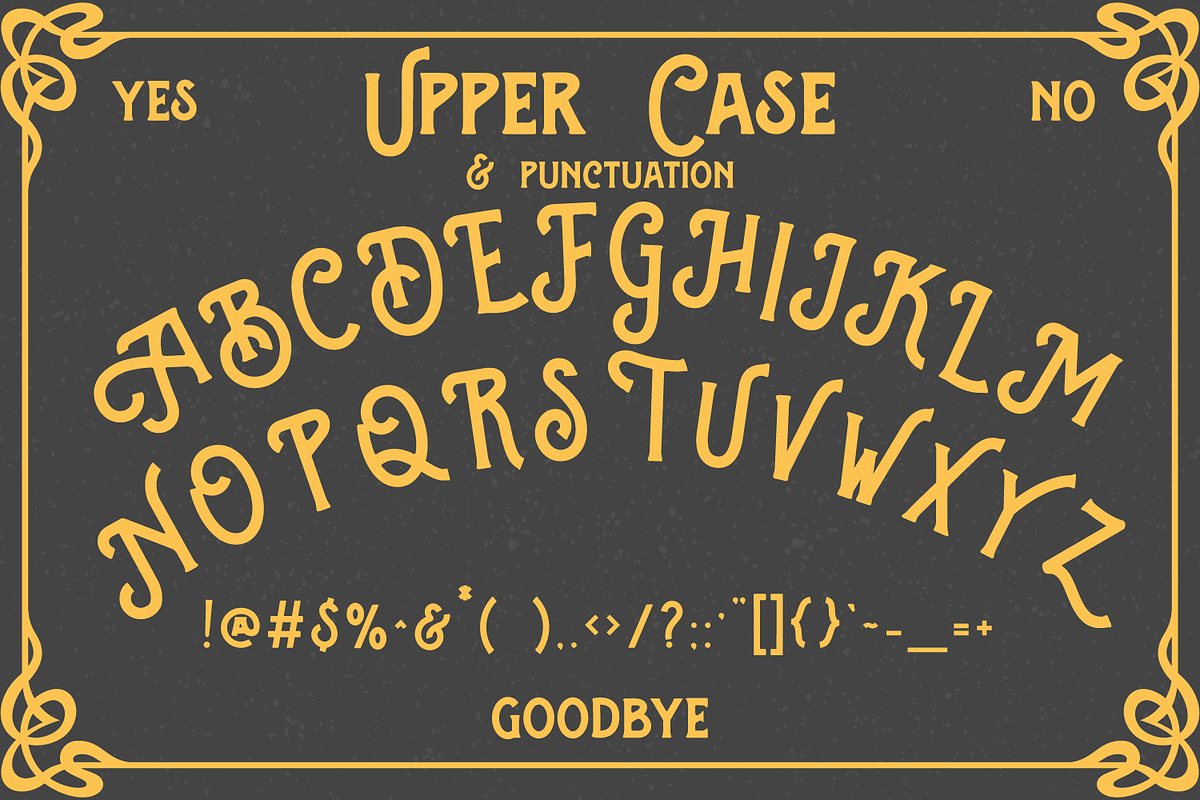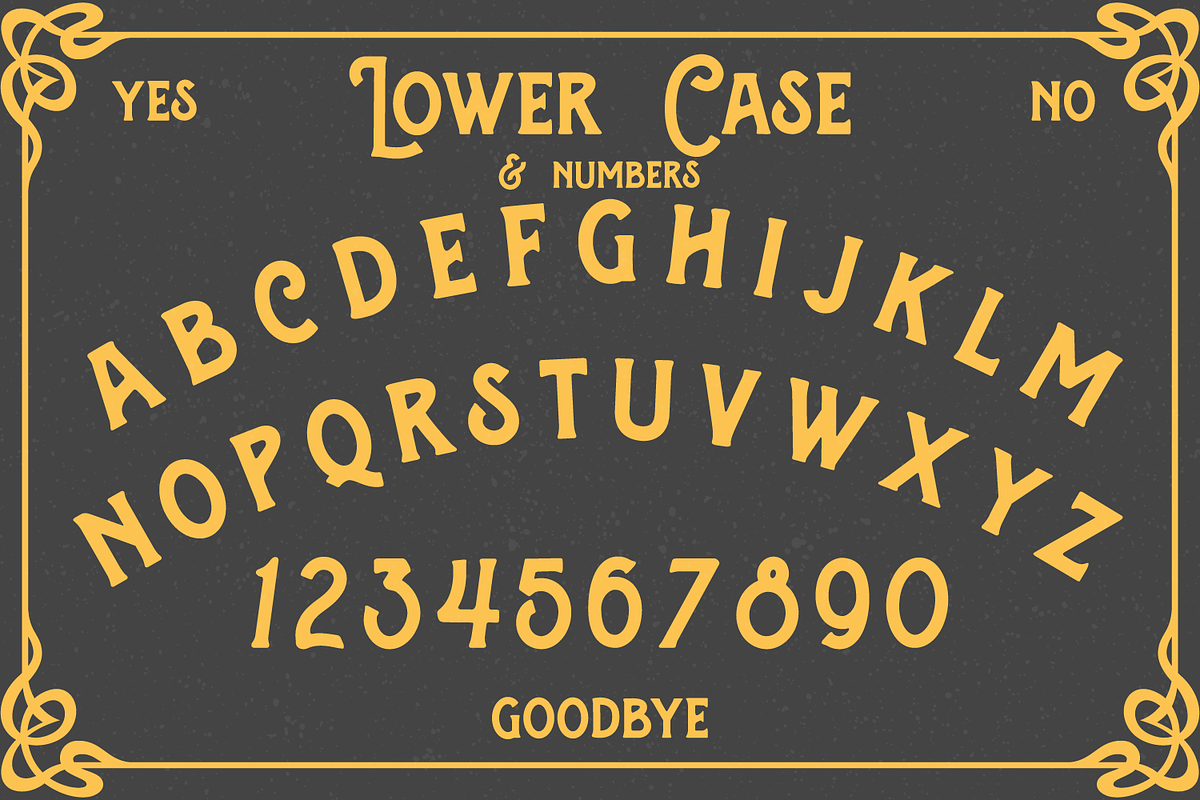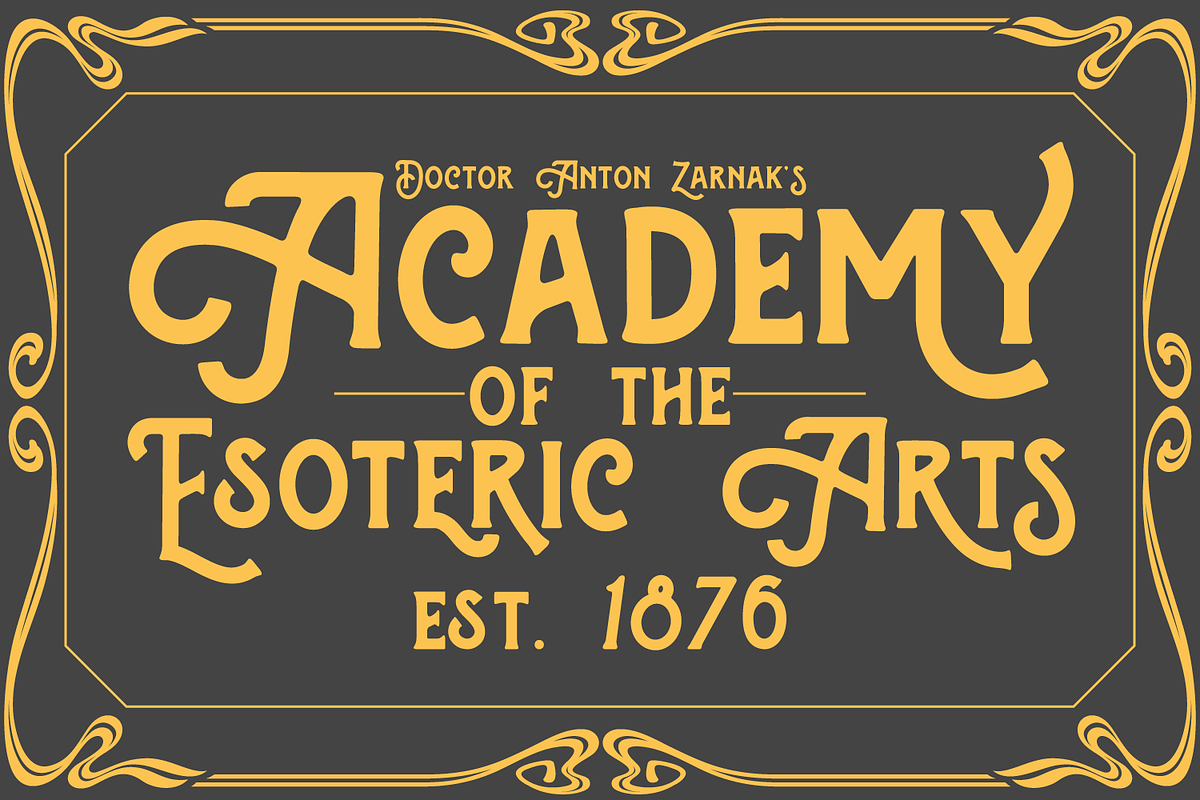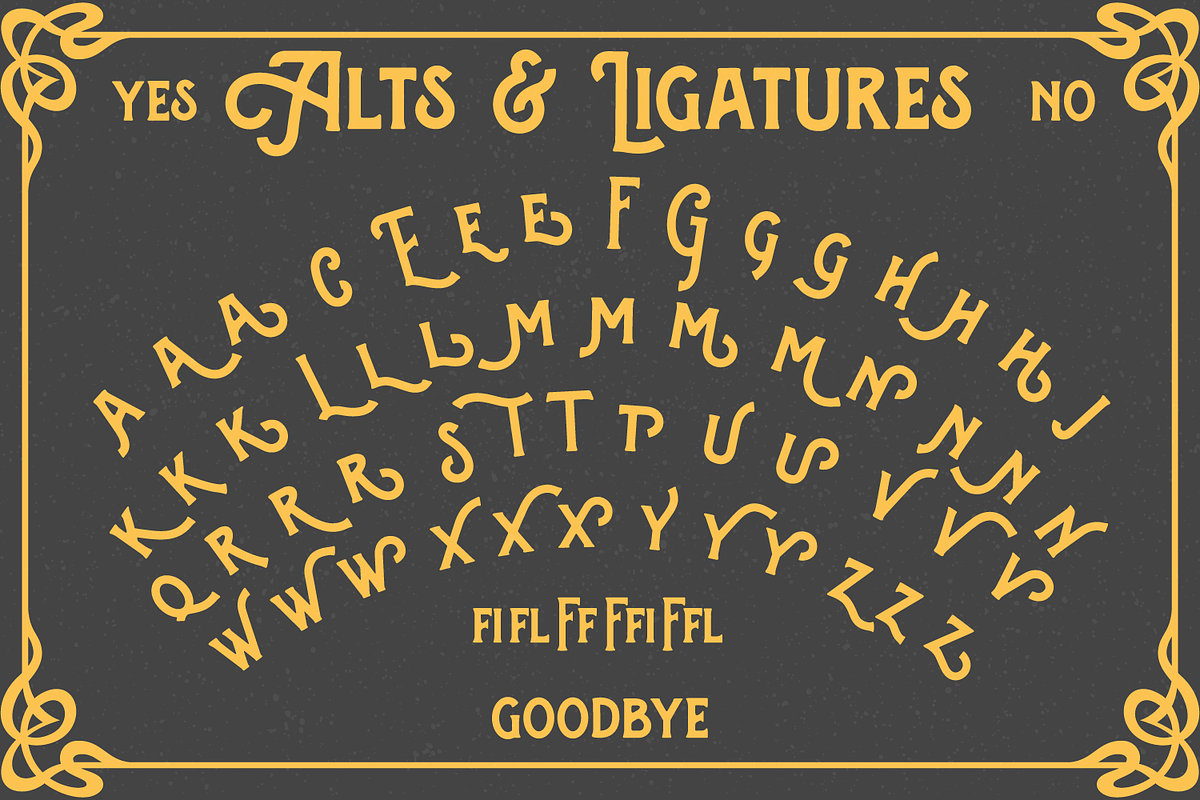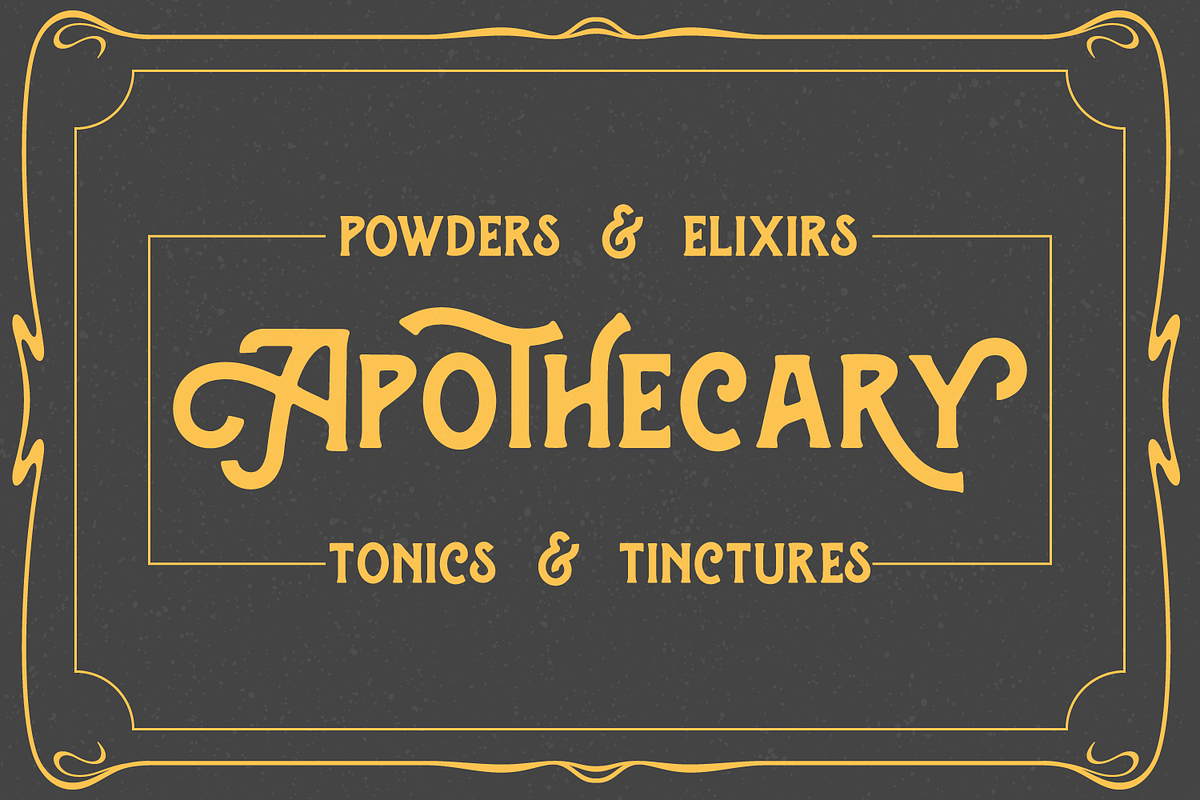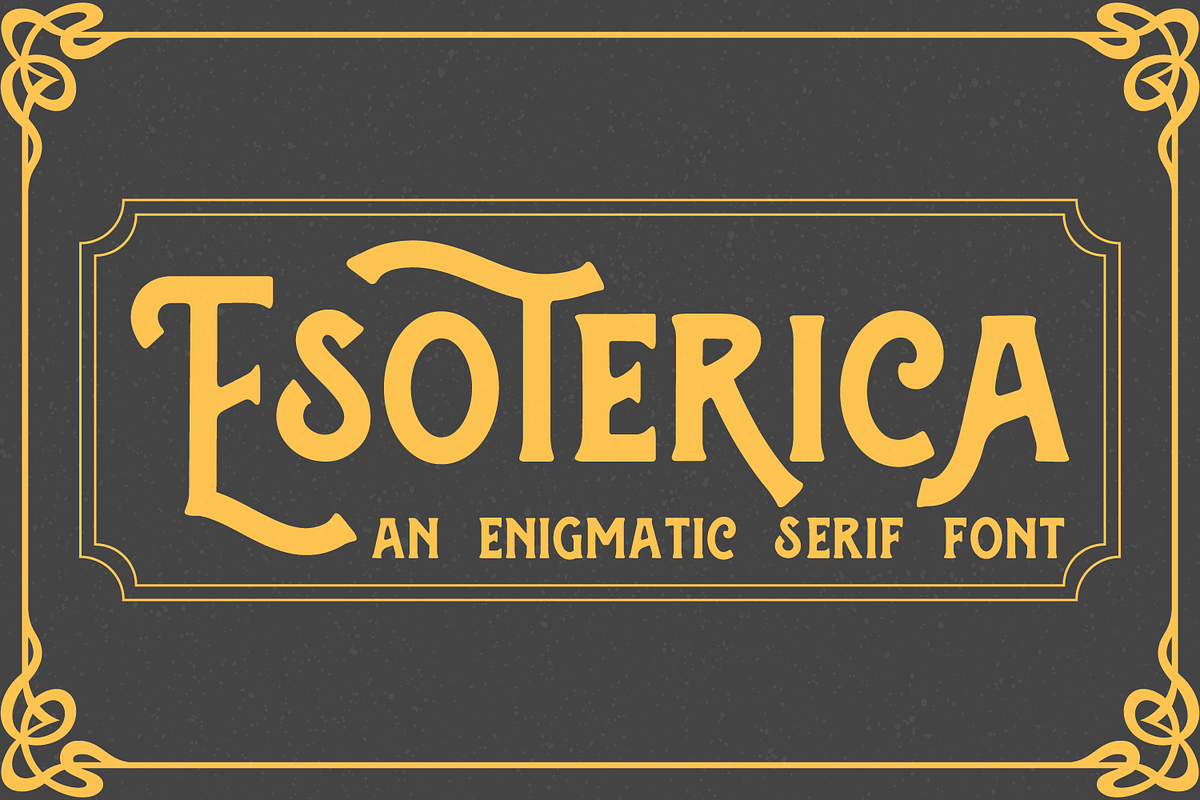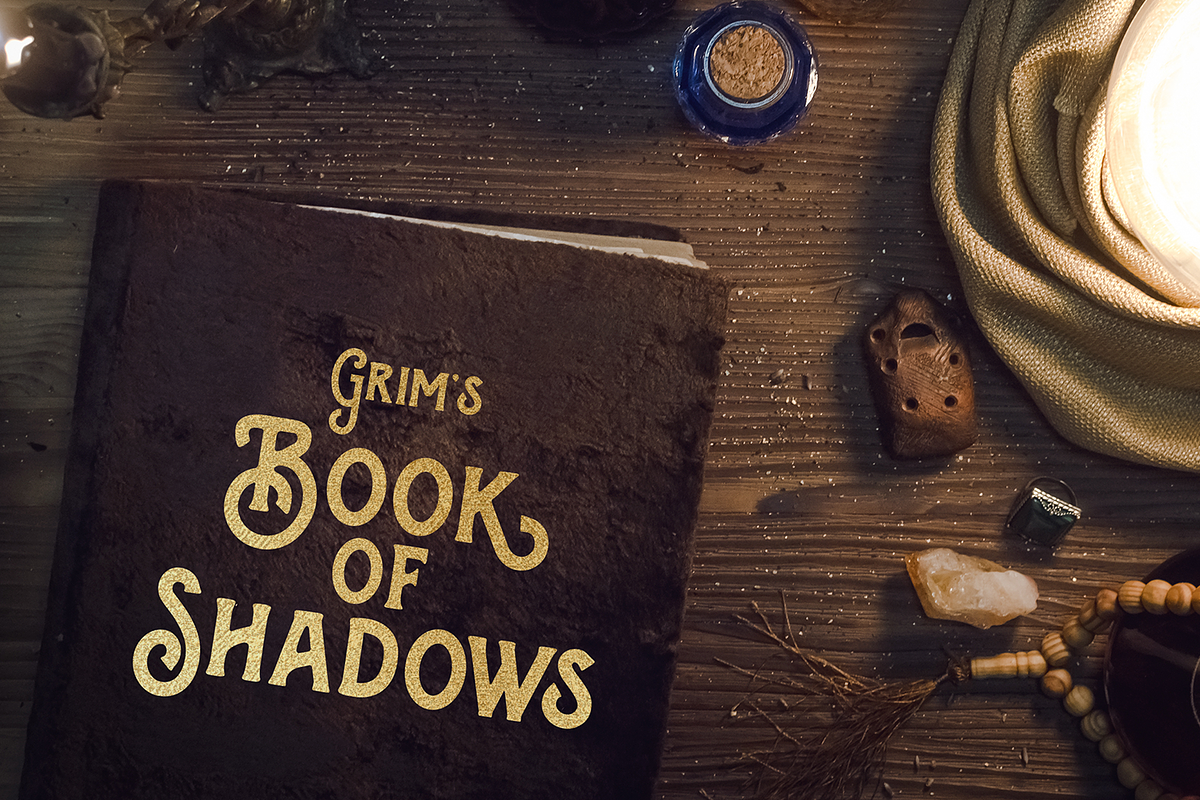
Esoterica an enigmatic serif font
Esoterica is an enigmatic serif font with elegant swirls and swashes.
This font hints at the type of the art nouveau movement and the late 19th-century and early 20th-century zeitgeist. It has strong witchy vibes so it's a good choice for elegant Halloween or spooky designs. It's also a solid caps all-rounder display font as it was designed with versatility.
This font includes standard ligatures as well as a set of stylistic alternates so you can use Open Type to create stunning, unique typography.